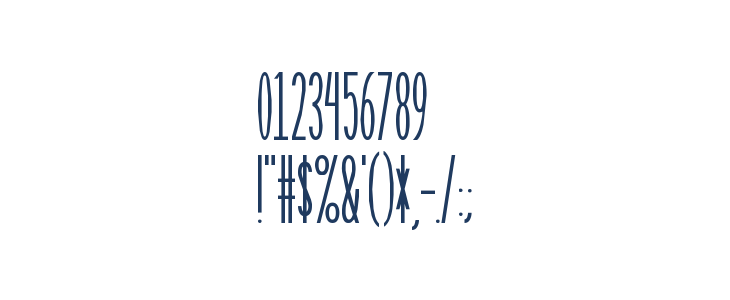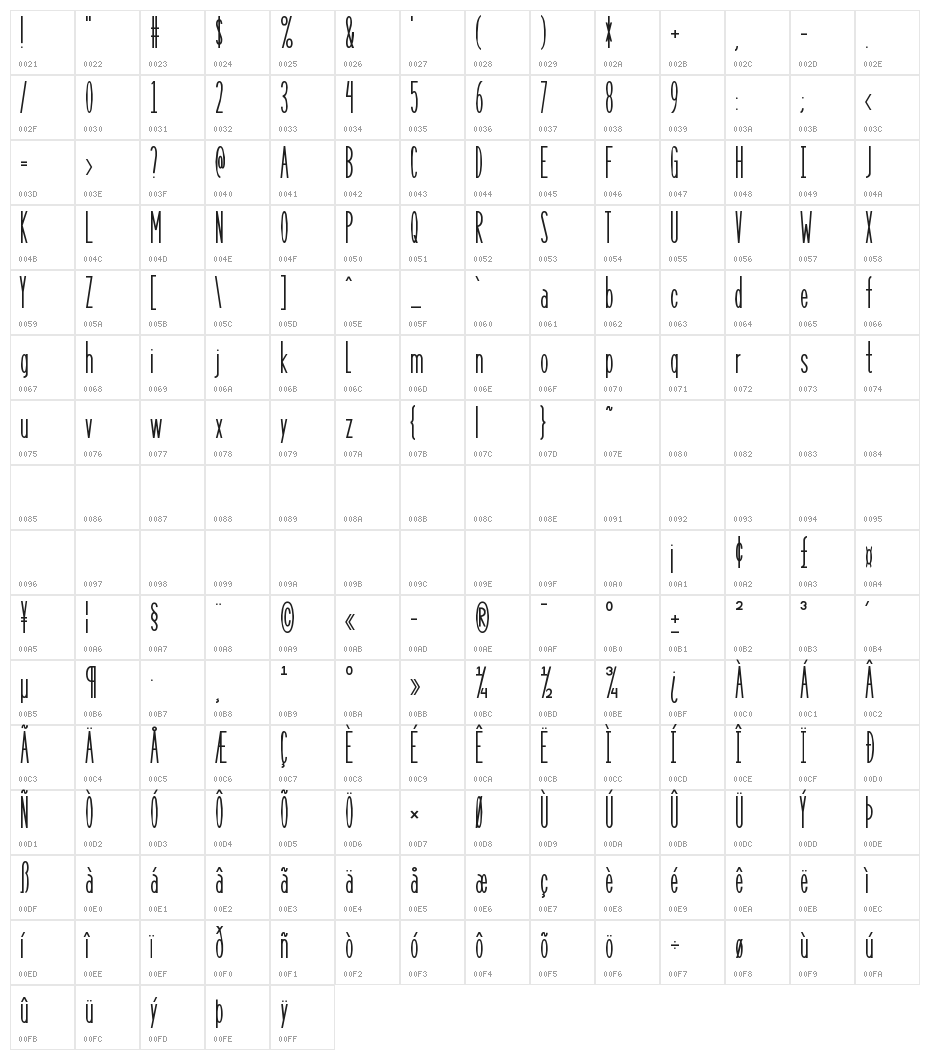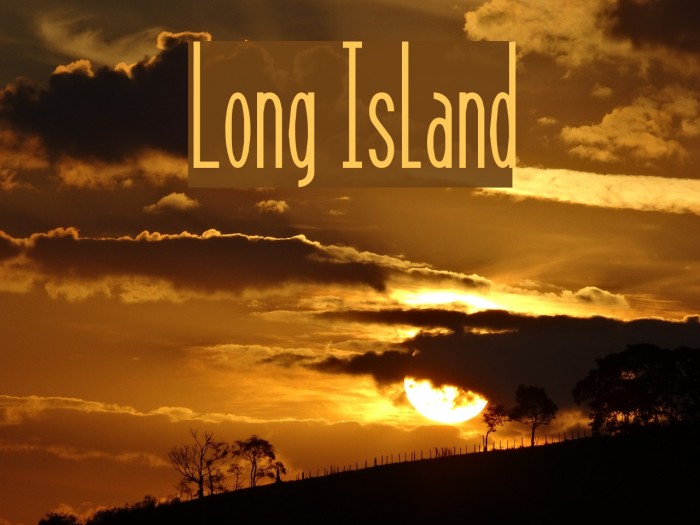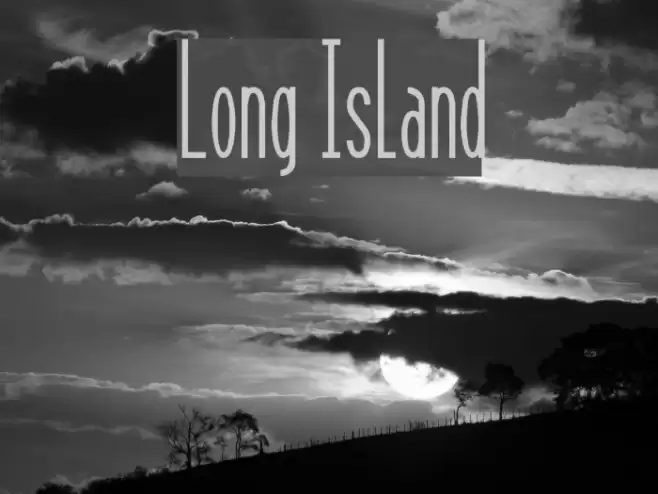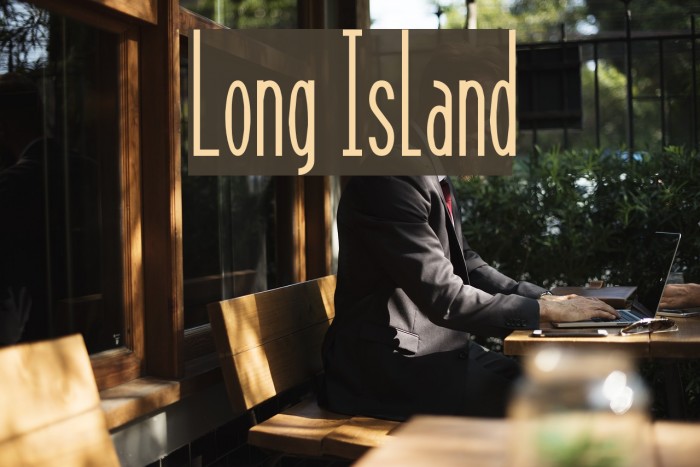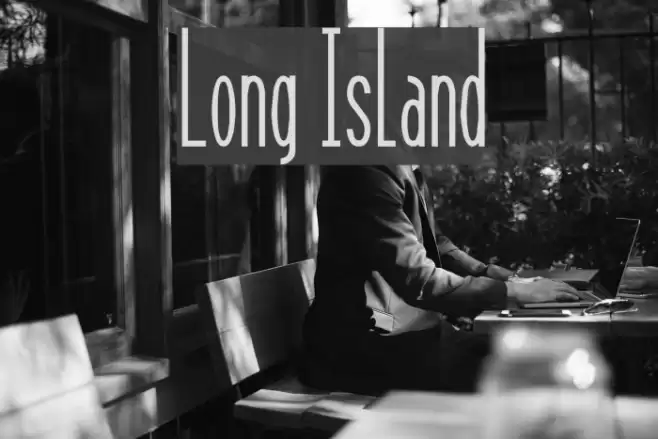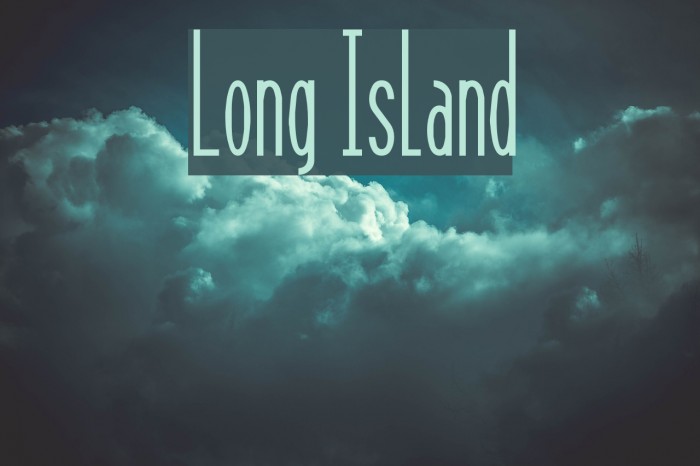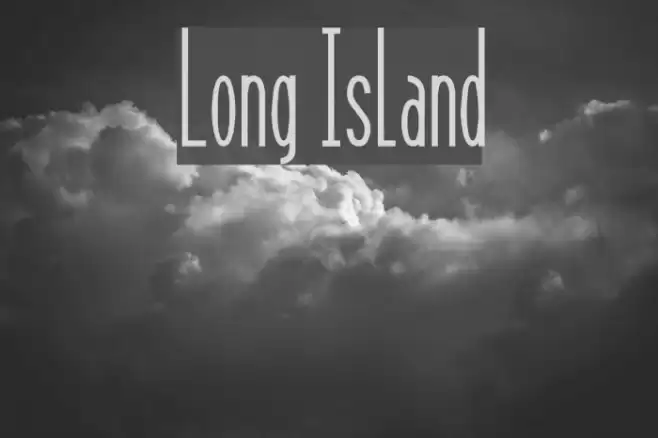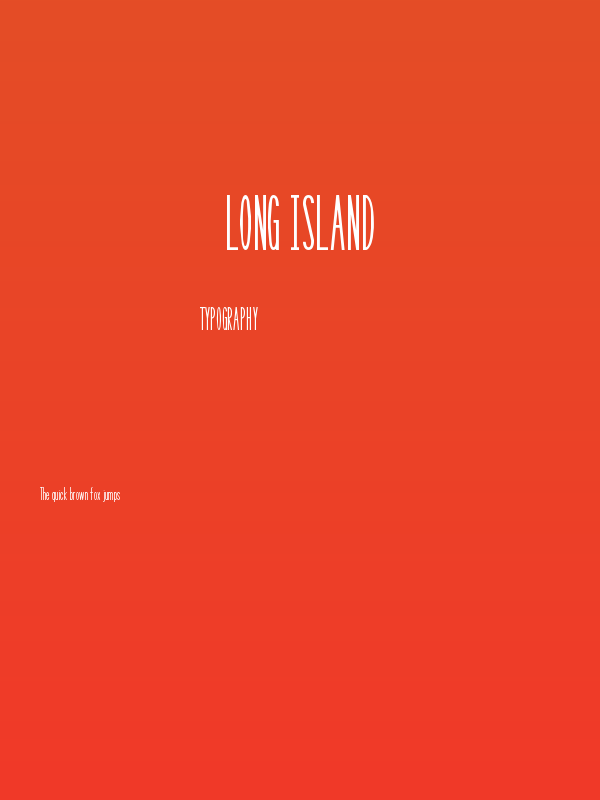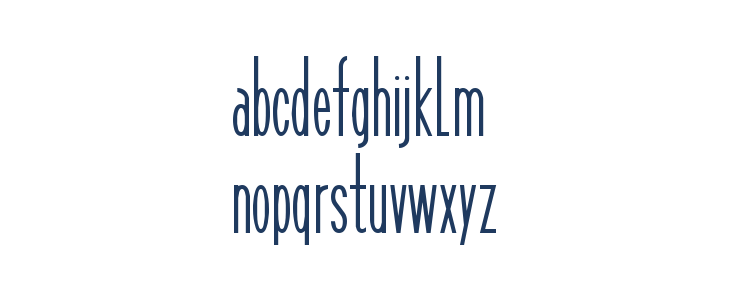
Long Island Font
Long Island Description
This font features tall, narrow letters with a distinctly modern and minimalist aesthetic. The characters are uniformly thin, contributing to a sleek and elegant appearance. The uppercase and lowercase letters maintain a consistent height ratio, while the numerals and special characters blend seamlessly with the overall style. The font's clean lines and lack of serifs give it a contemporary feel, making it suitable for a variety of design applications. Its elongated form and tight spacing create a unique visual impact, ideal for making bold statements in design projects.
| Proposed Projects | Ideal for fashion branding, magazine headlines, modern posters, and minimalist web design. |